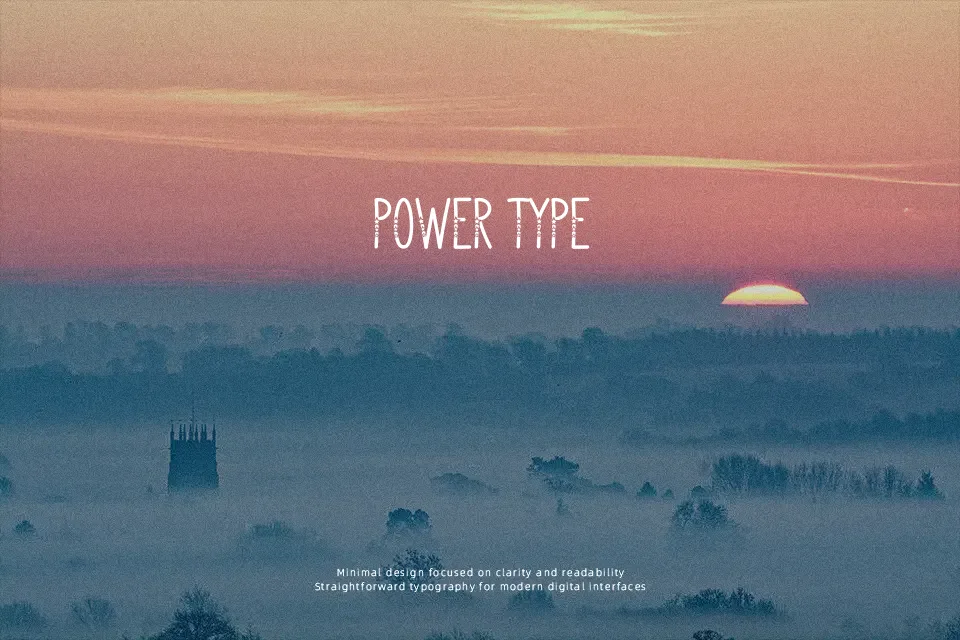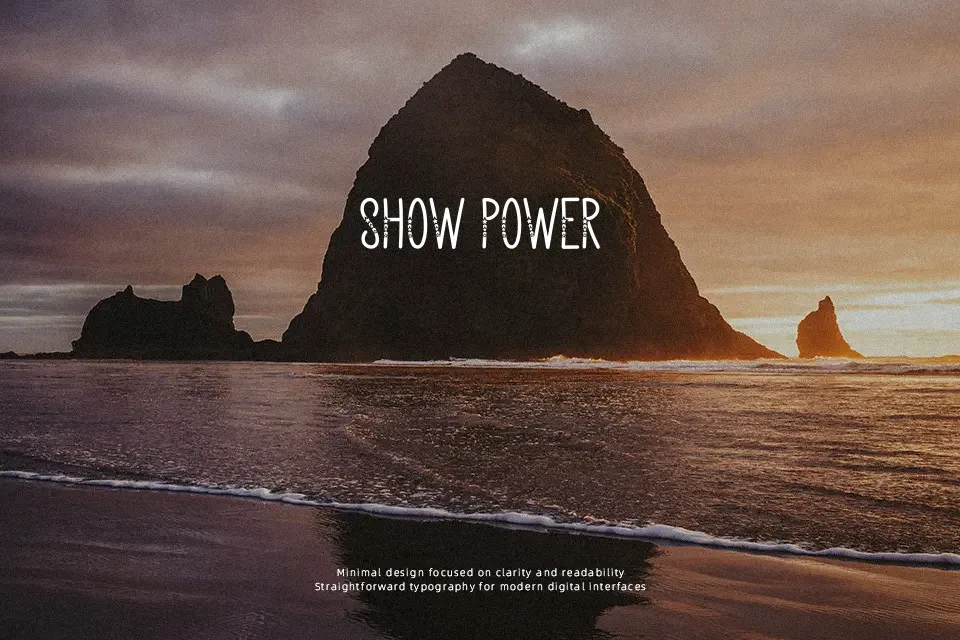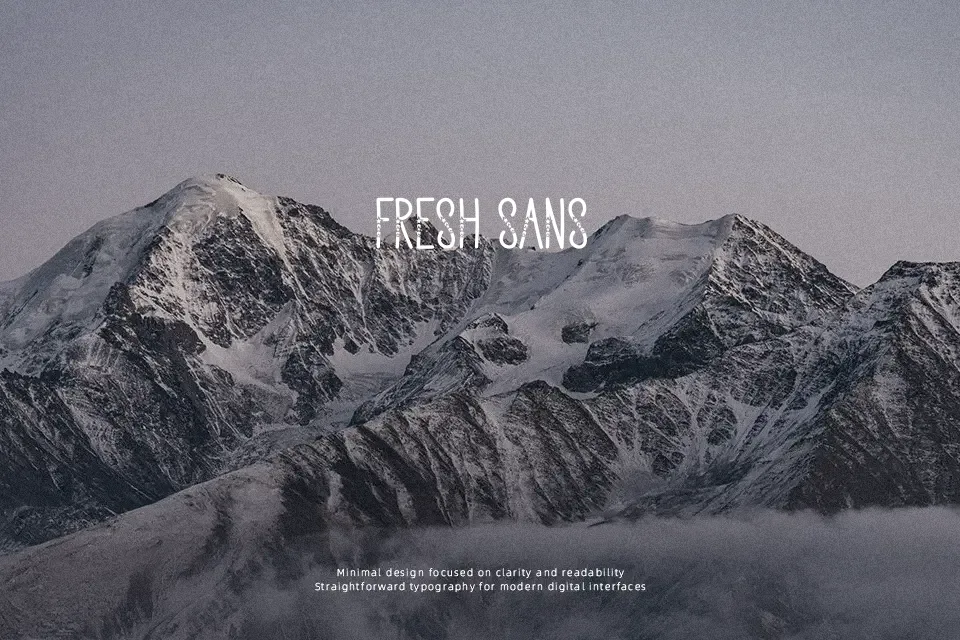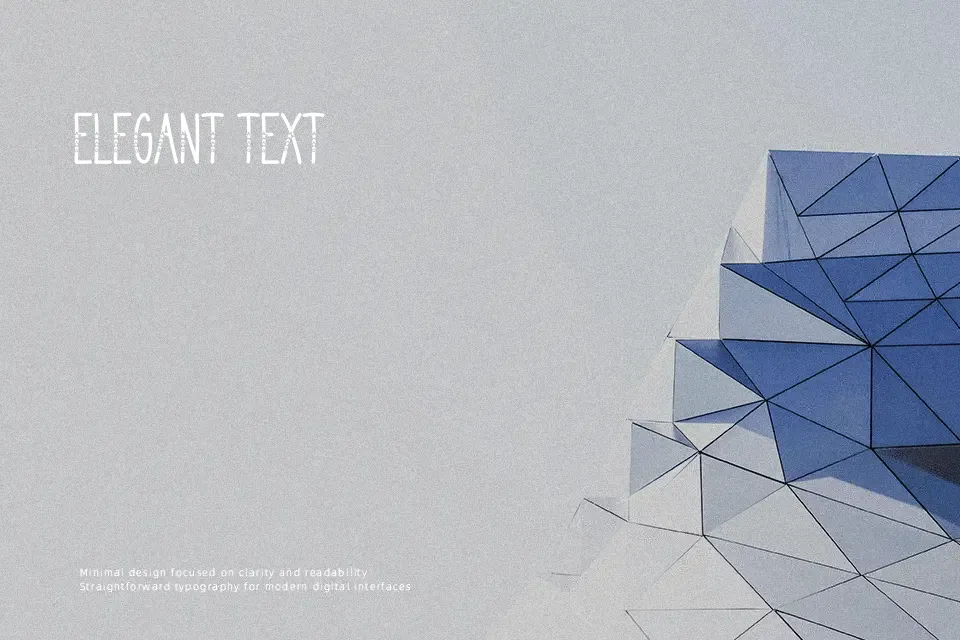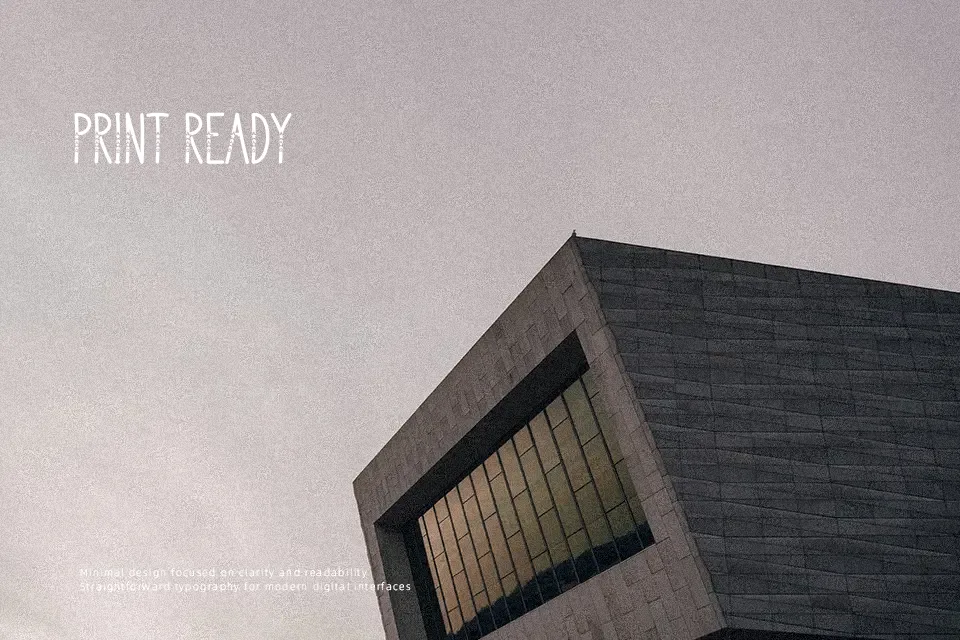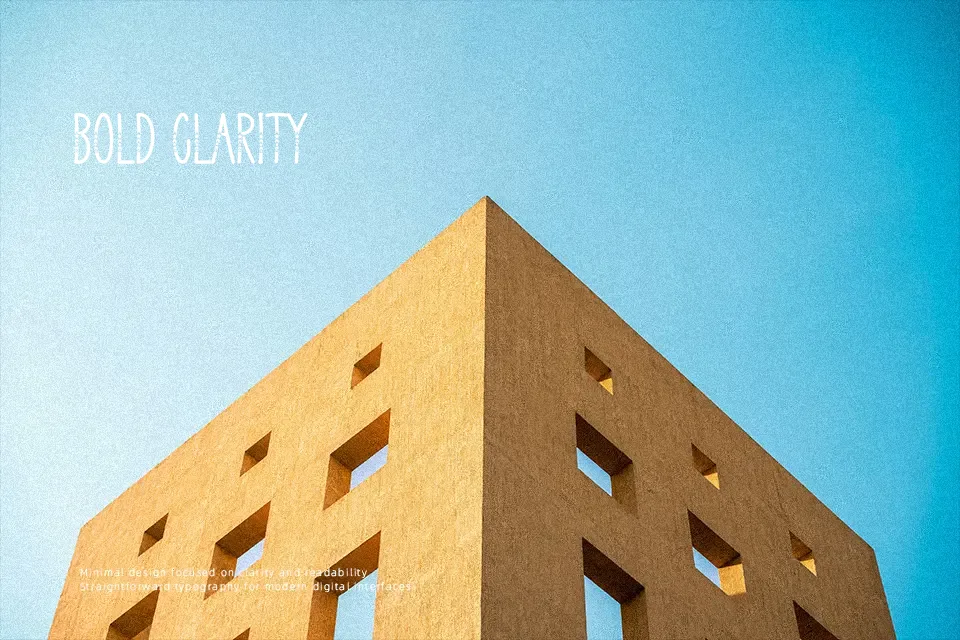
Starcorp Font
Crafted for lighthearted presentation work, Starcorp Font pairs rounded stroke terminals with informal letter shapes to produce a cheerful aesthetic. The glyphs display moderate width variance and irregular baselines that give the design an organic, drawn feel. Spacing between characters remains loose enough to keep individual letterforms identifiable across medium headlines, package accents, and celebratory banners. However, the organic irregularities and decorative flourishes reduce reading comfort across dense editorial columns and multi-line body paragraphs. The letterforms perform most effectively when treated as short titles, where the quirky curves capture attention without compromising immediate legibility.
Best For: event invitations,merchandise packaging,celebration banners,social media graphics
Not Ideal For: long body text,technical documentation,legal contracts,small interface labels
Perfect for headline, invitation, and packaging, with a creative and decorative style.